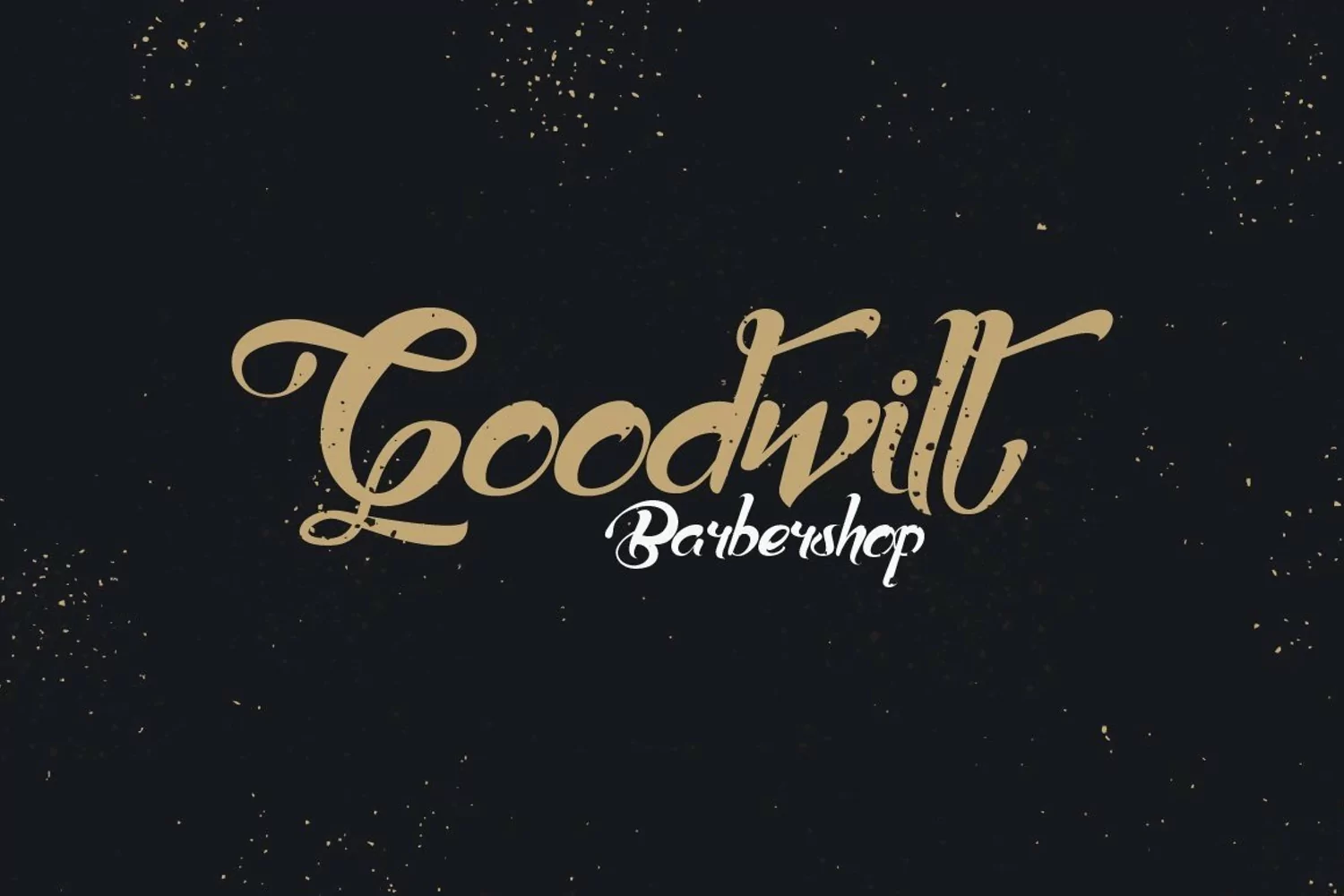
Wanih is a handpainted typeface with a customible style it’s perfect for creating tattoo, a headline, logotype, and t-shirt/ apparel design. The characteristic of Wanih is urban style with the unique handmade touch characteristic